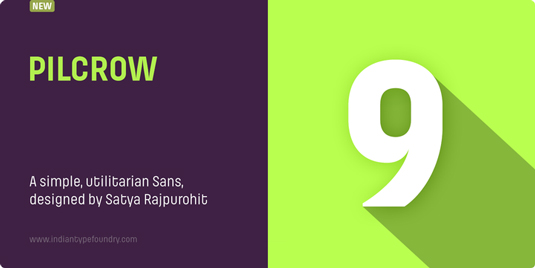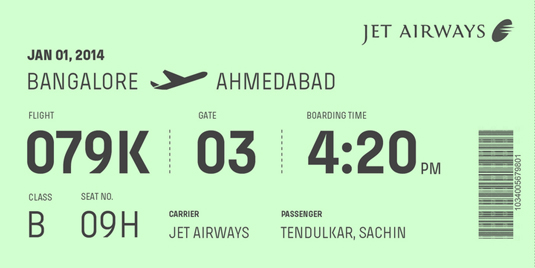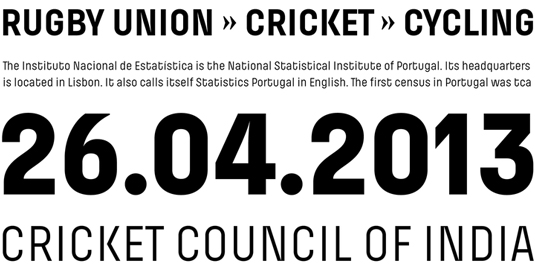
Font of the day: Pilcrow
Pilcrow by Satya Rajpurohit
Today's font of choice is Pilcrow, a Latin-script sans serif family. Its simple, utilitarian design is similar to forms found on street and highway signs around the world. Pilcrow is suitable for variety of print and digital projects, and is ideal for logos, headlines and much more.